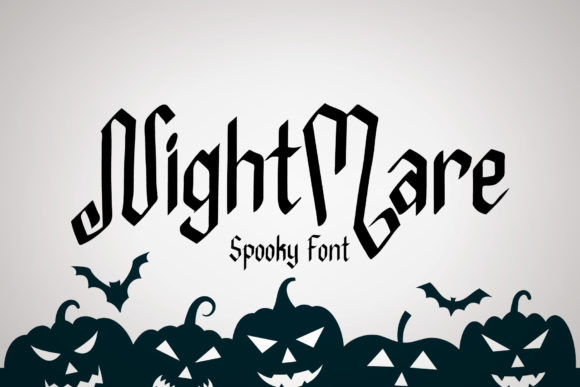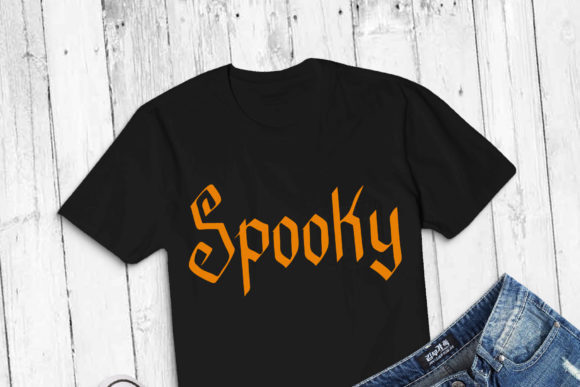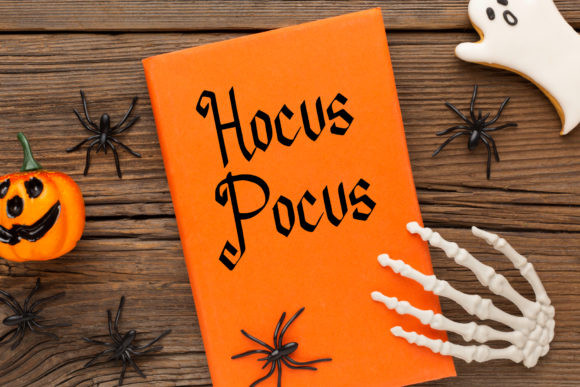
Nightmare Font
Nightmare is a unique and spooky display font .Its playful style is the perfect fit for all of your logos, branding, posters, and crafty DIY projects.